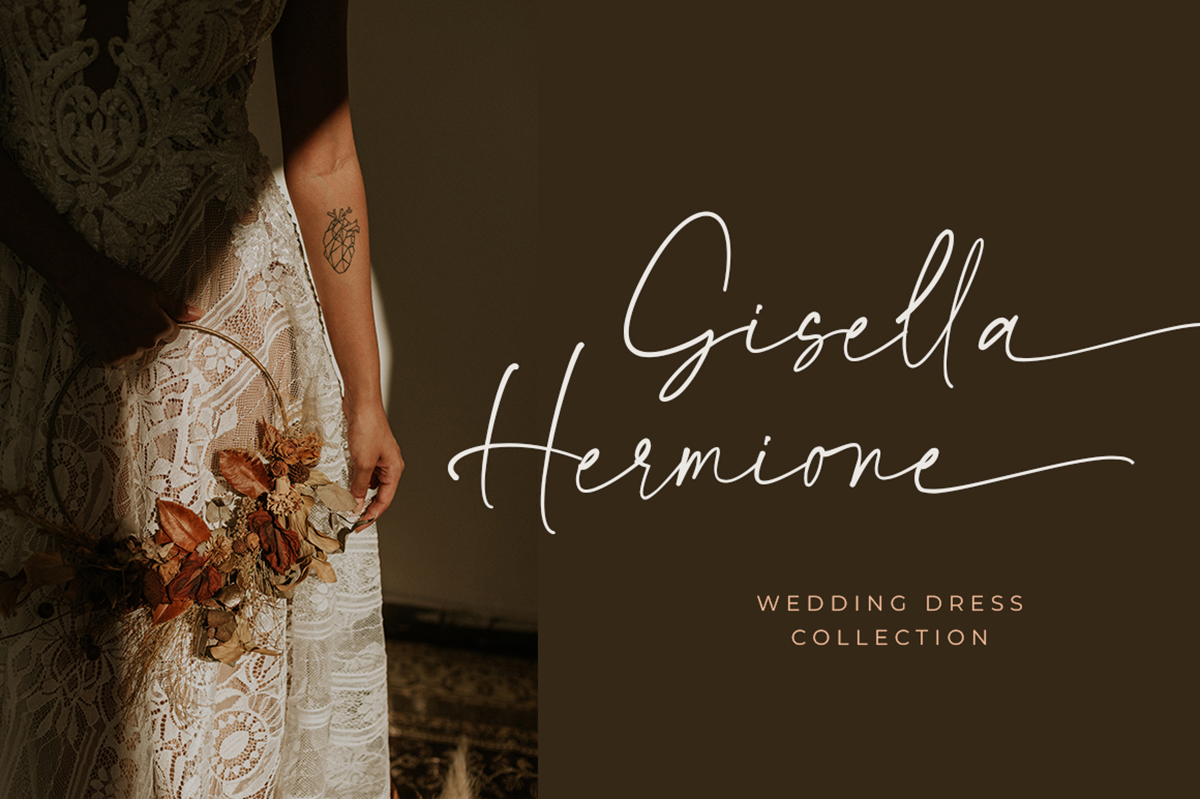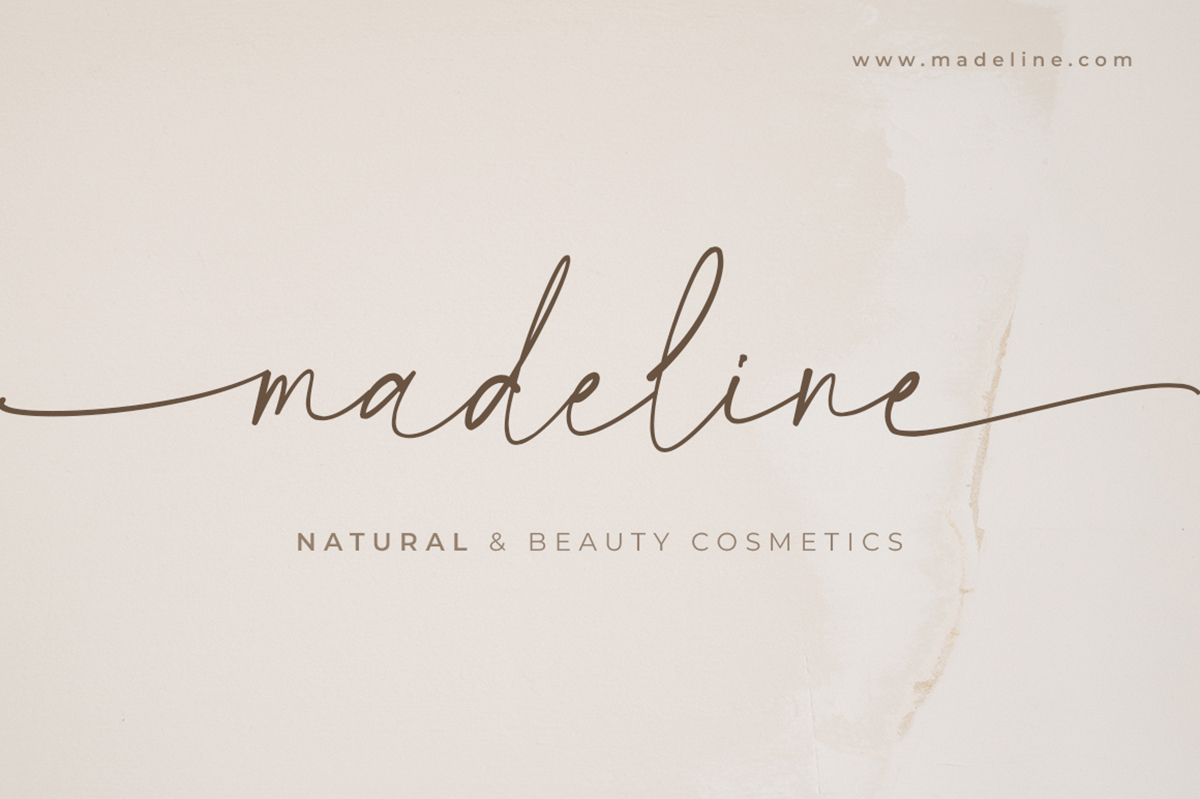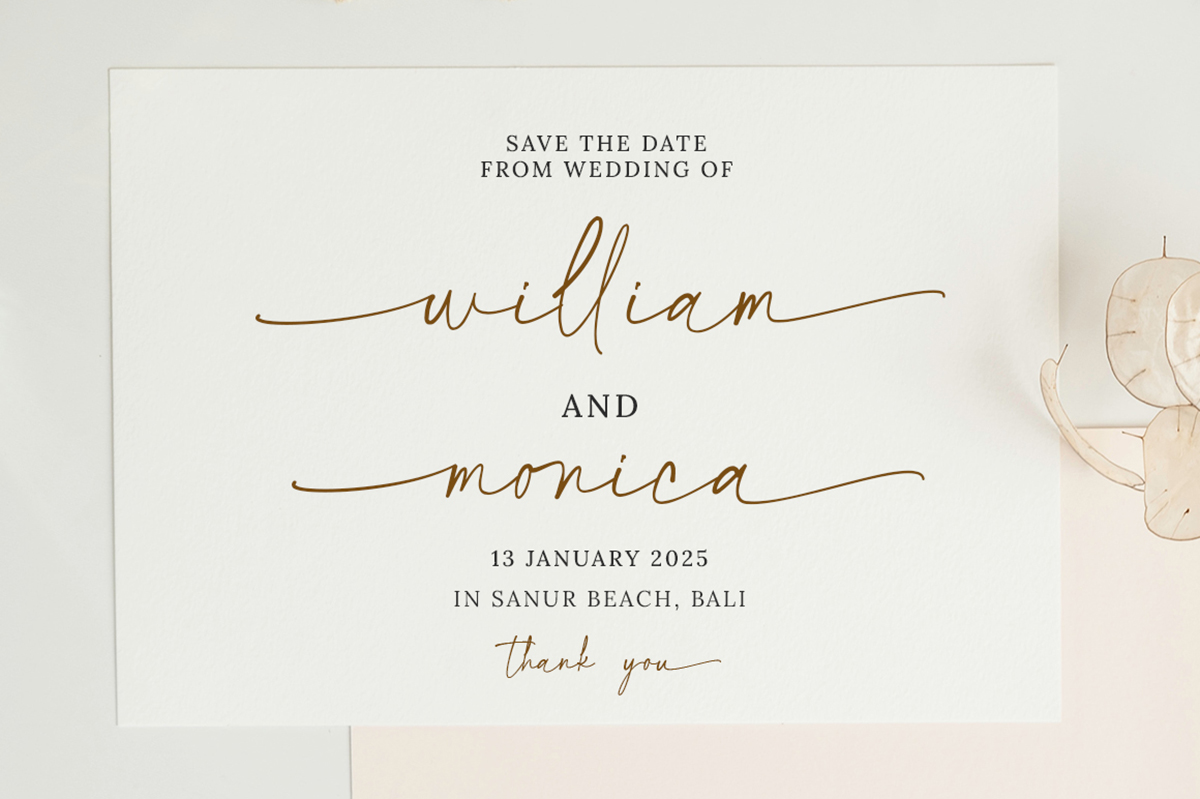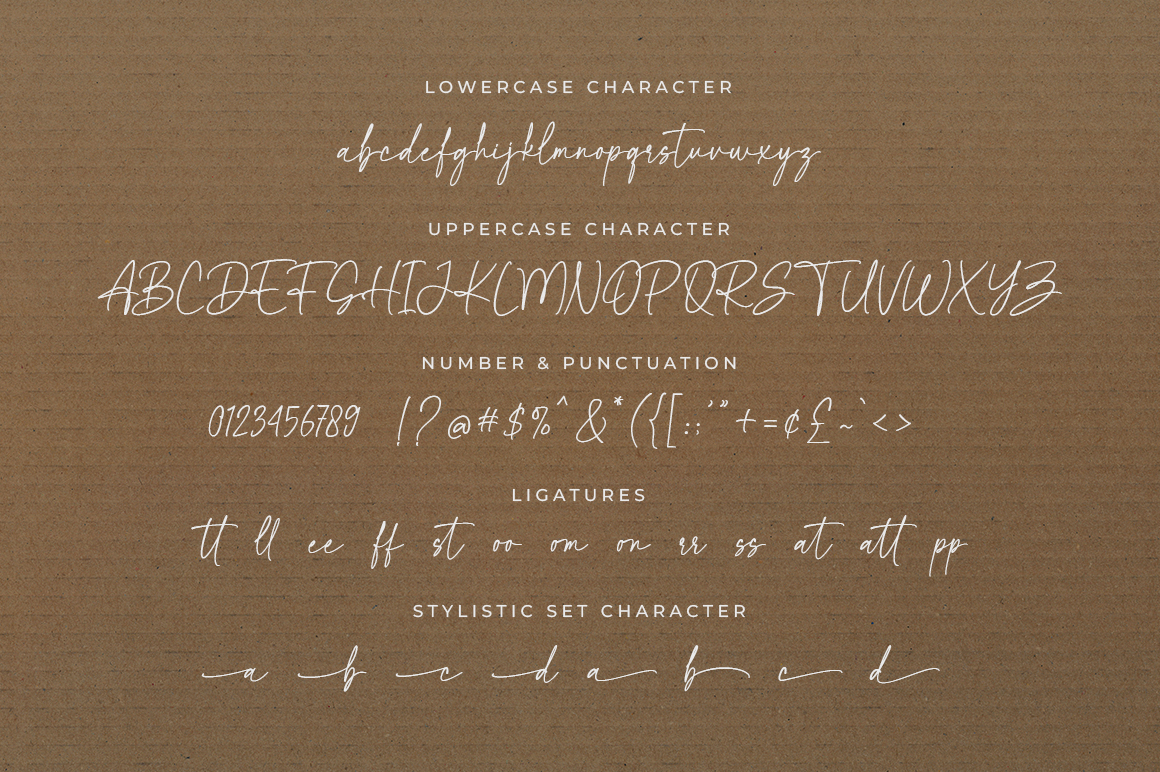
Mixed Feelings Free Font
Mixed Feelings Free Font feels equally charming and elegant. It looks stunning on wedding invitations, thank you cards, quotes, greeting cards, logos, business cards, and every other design which needs a handwritten touch. This free typeface was designed by a talented Bluestype Studio. If you like it don’t forget to check out the full version.